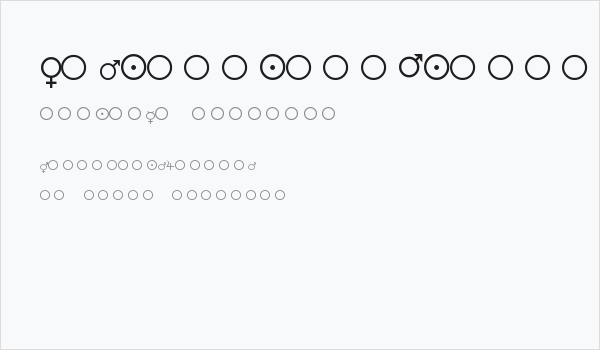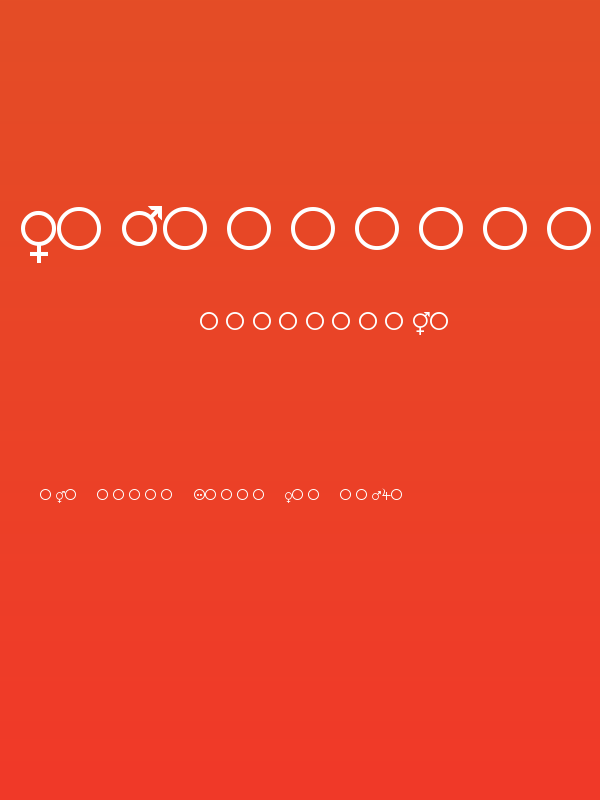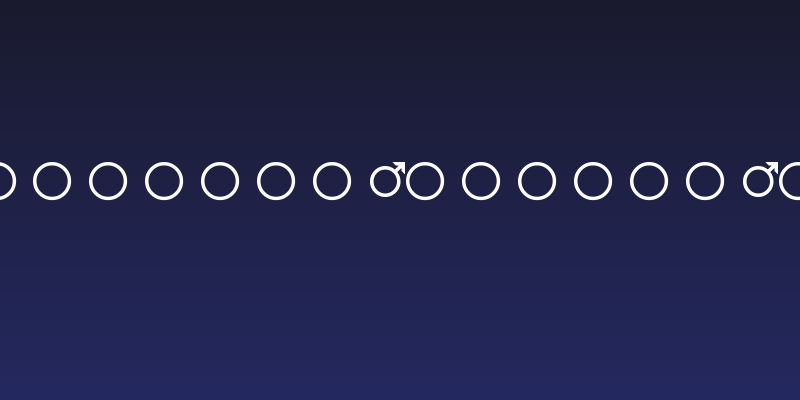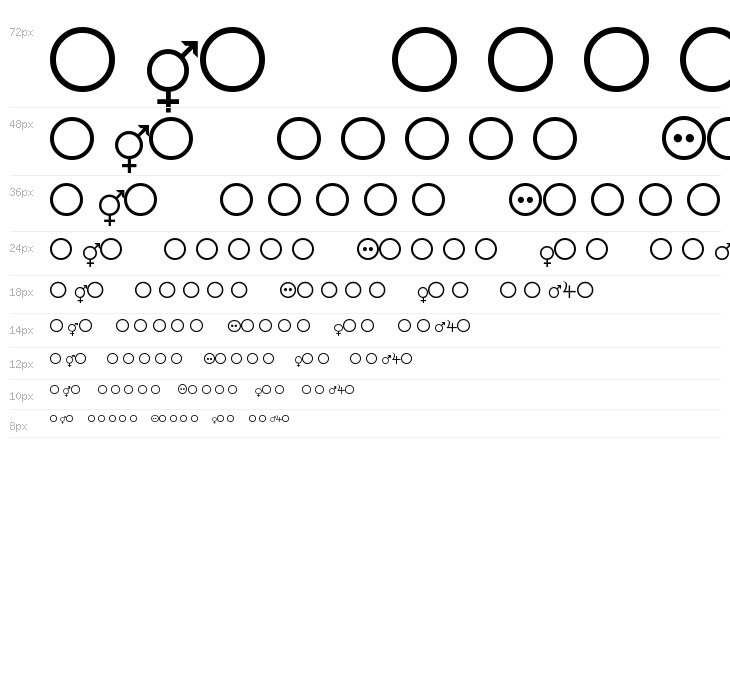
Female-and-Male-Symbols Font
Female-and-Male-Symbols Description
This is not a valid font. The image consists of a series of symbols, primarily circles with some containing gender symbols. These symbols are not representative of a traditional font set and do not include the typical alphanumeric characters or punctuation marks required for a complete font.